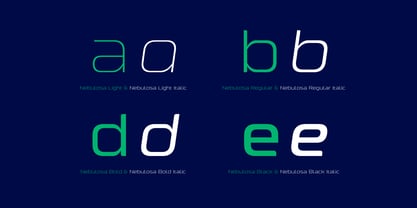
Nebulosa
by Graviton
About the family
Nebulosa font family has been designed for Graviton Font Foundry by Pablo Balcells in 2020. It is a futuristic, slightly extended sans serif typeface with semi rounded endings that provide a softened aesthetic without losing its solidity. Nebulosa has been conceived to be most suitable for logos, headlines and display design pieces as well as short length text blocks.
Nebulosa consists of 10 styles, 8 of which containing small caps and glyph coverage for several language and 2 of which are free.
Designers: Pablo Balcells
About Graviton
Graviton is a type foundry based in Buenos Aires, Argentina. It was founded by Pablo Balcells in 2013. Graviton's goal is to design new and original typefaces with a strong modernist and geometric aesthetic, a tendency that is being increasingly popular among many font users worldwide, such as video game designers, mobile application developers and graphic designers.